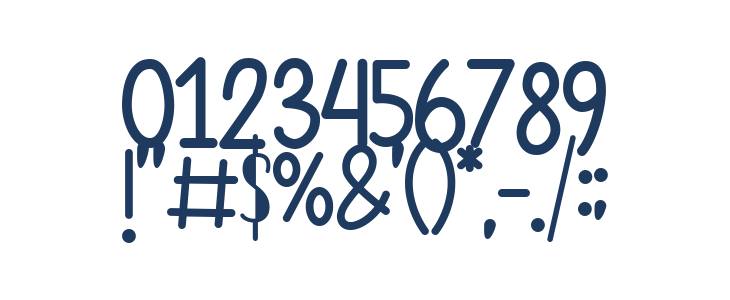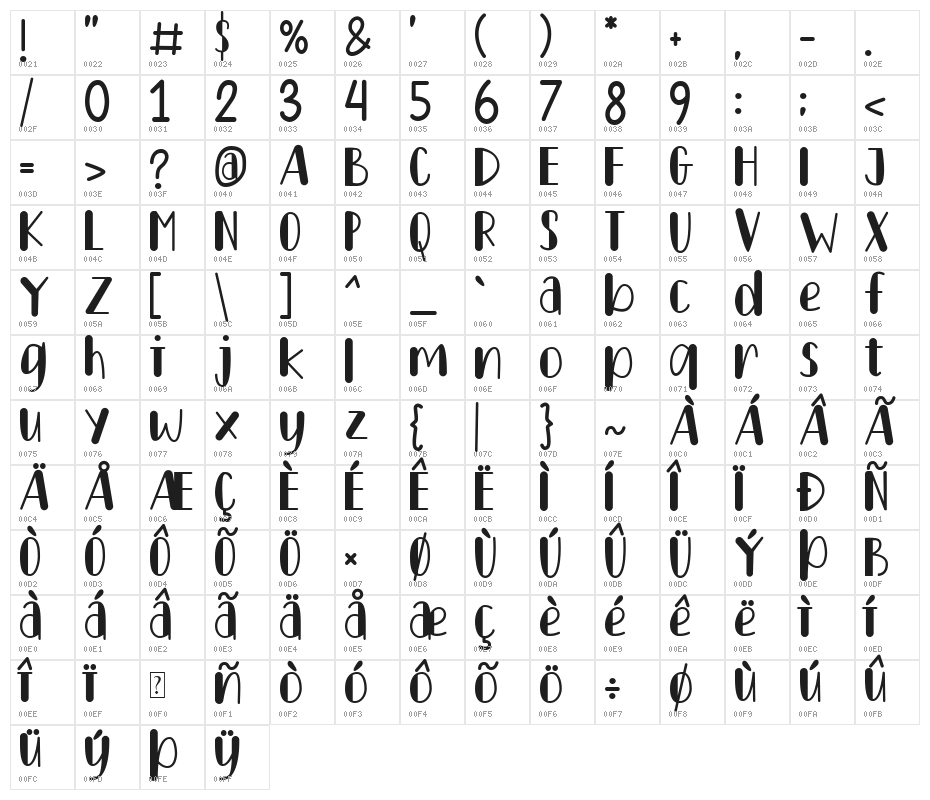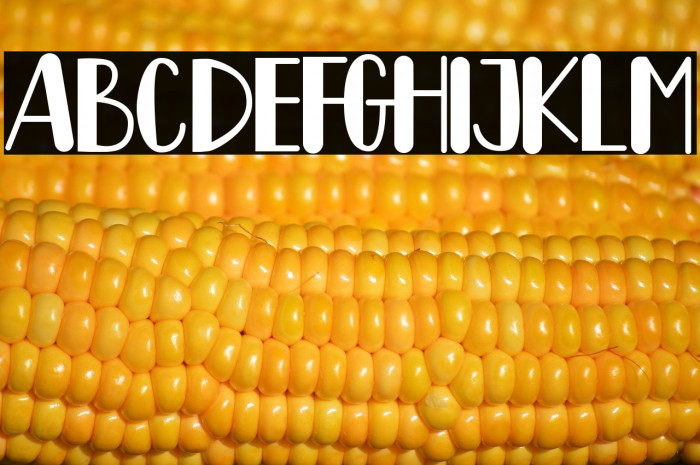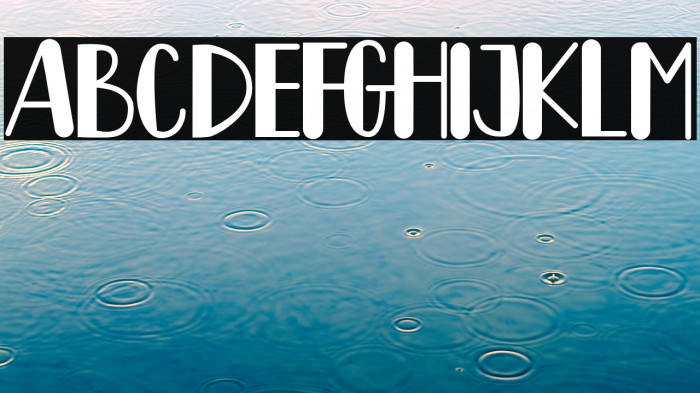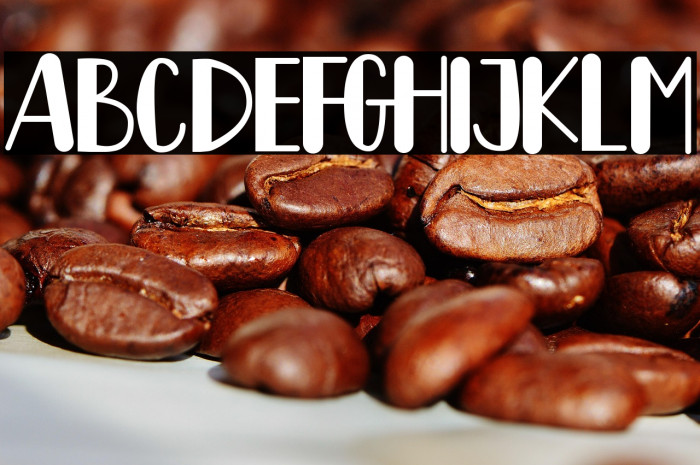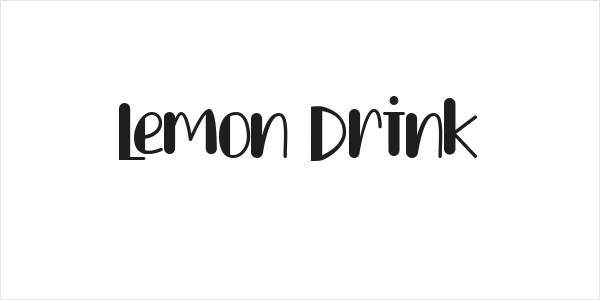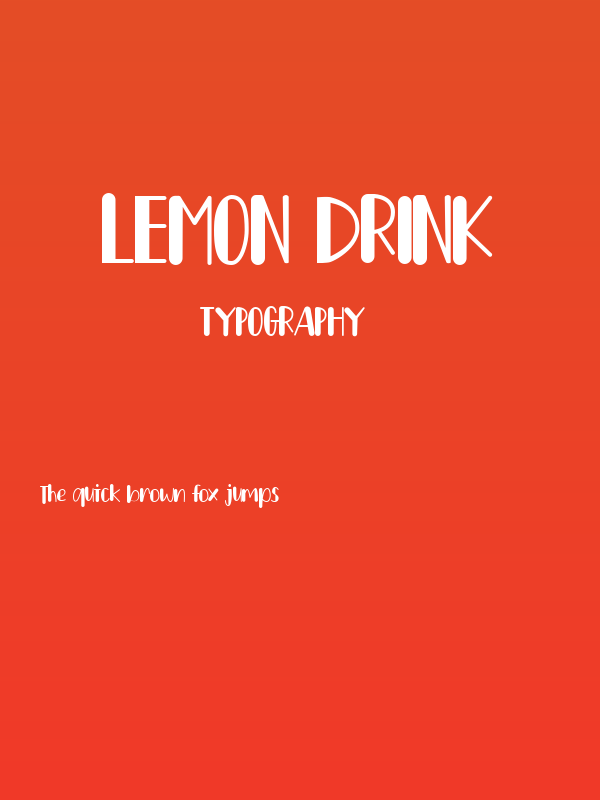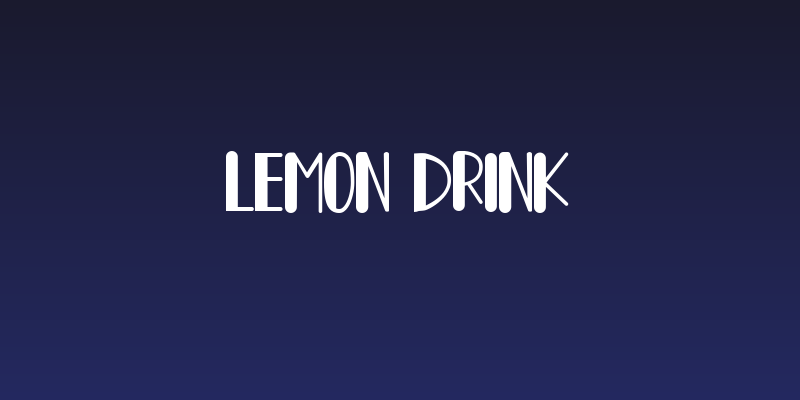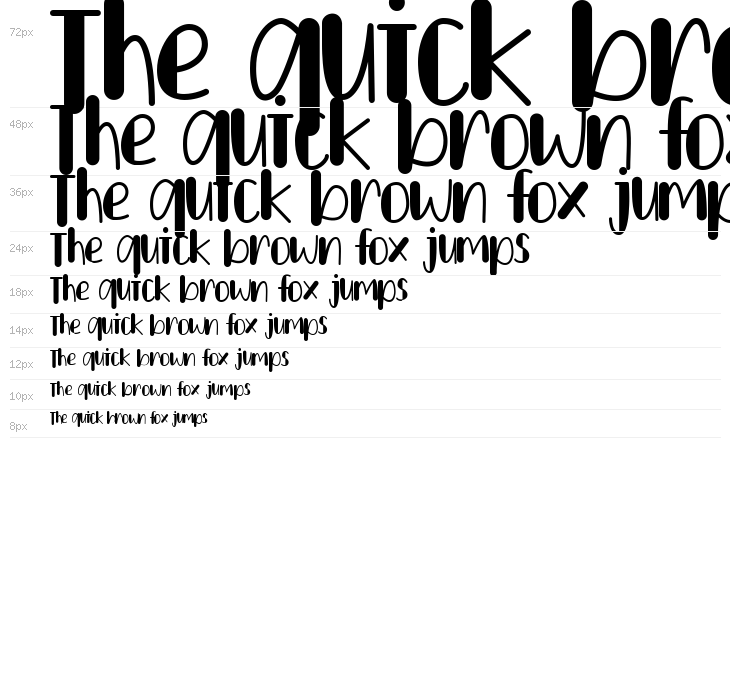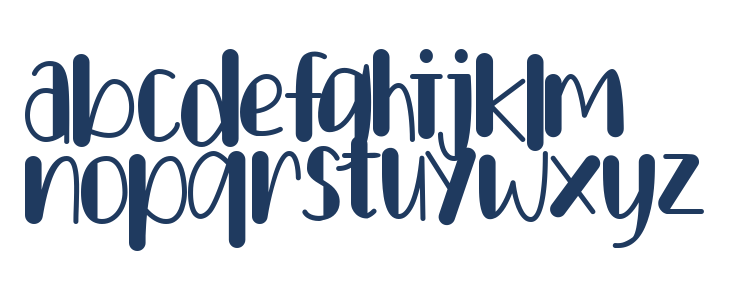
Lemon Drink Font
Lemon Drink Description
This font features a playful and bold style with a handwritten touch. The characters are rounded and slightly irregular, giving it a whimsical and friendly appearance. The uppercase letters are tall and narrow, while the lowercase letters maintain a consistent height with a slight slant, adding to the casual feel. The numbers and special characters follow the same playful design, making them suitable for creative projects. The overall look is modern and approachable, ideal for designs that require a touch of personality and fun.